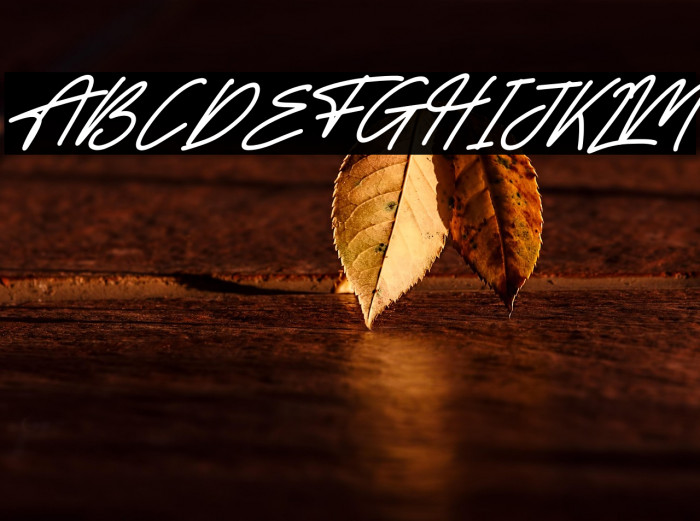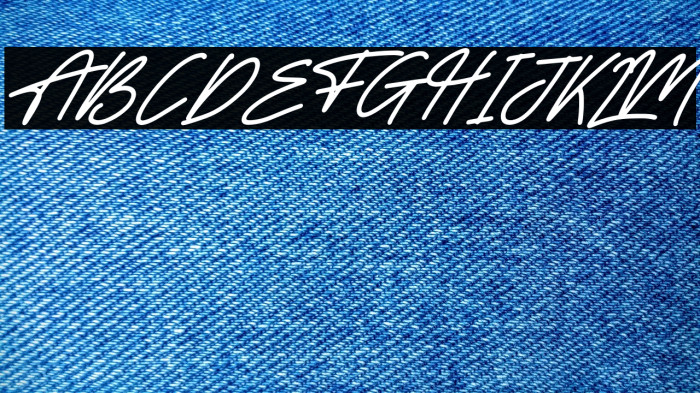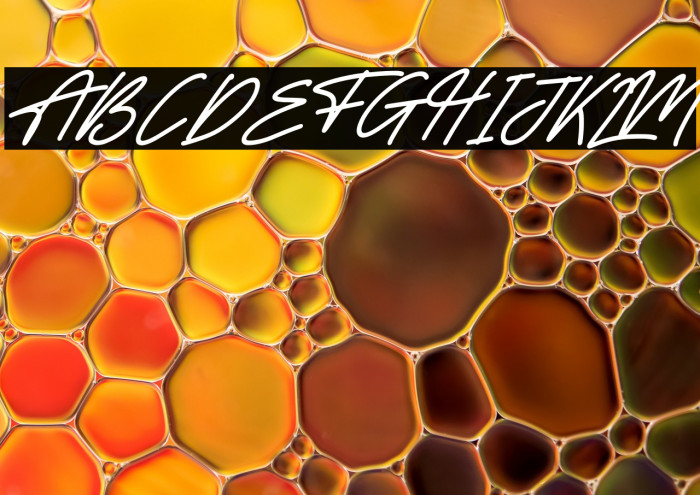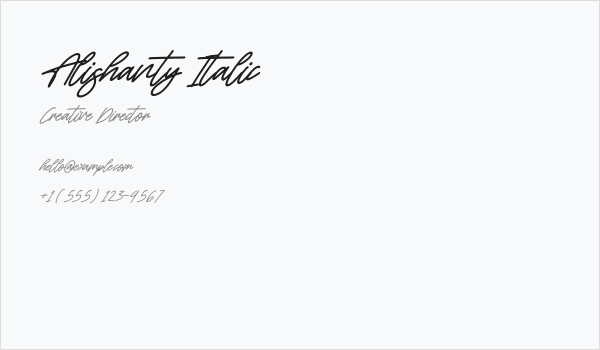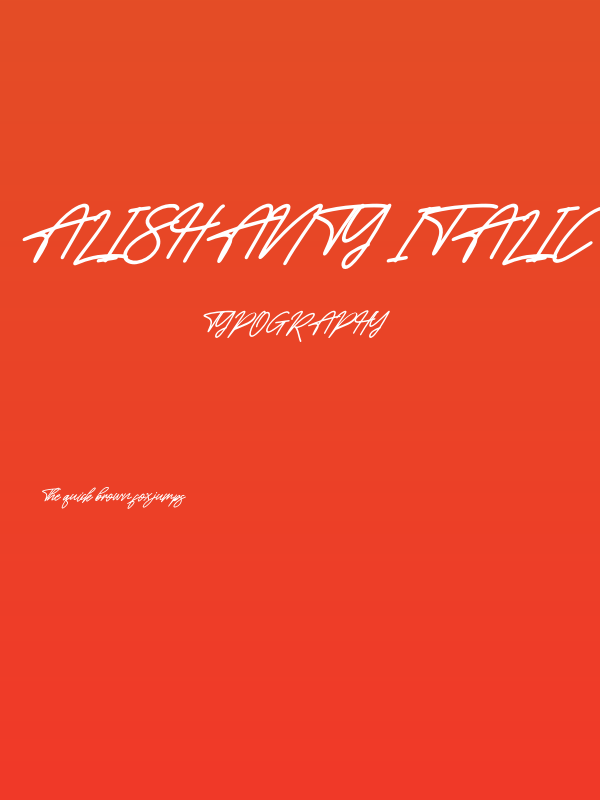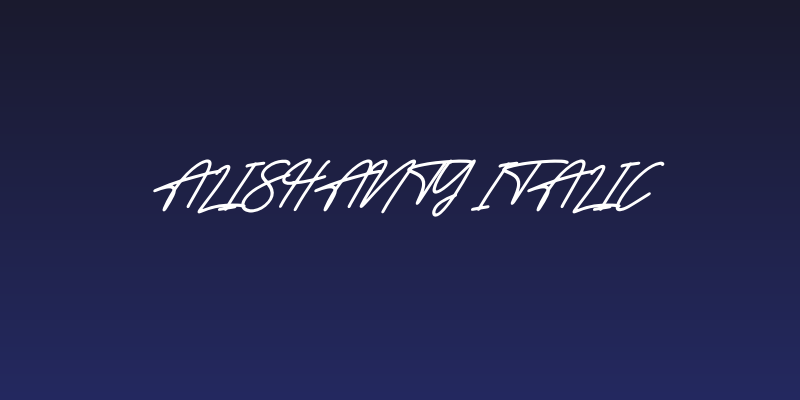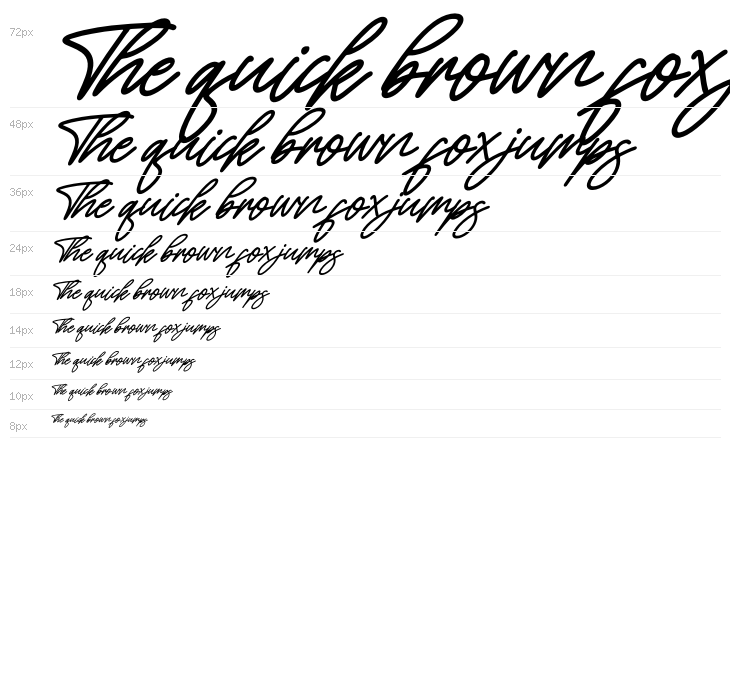
Alishanty Italic Font
Alishanty Italic Description
This font exudes a dynamic and fluid style, characterized by its cursive, handwritten appearance. The letters are connected, creating a seamless flow that mimics natural handwriting. The strokes are smooth and consistent, with a slight slant that enhances its italic nature. The uppercase letters maintain a bold presence, while the lowercase letters are more delicate, yet still maintain a sense of cohesion. The numerals and special characters follow the same cursive style, ensuring uniformity across all characters. This font is ideal for projects that require a personal touch or an elegant, yet informal, aesthetic.
| Overall Style | Elegant, Personal |
| Proposed Projects | Ideal for wedding invitations, personal branding, greeting cards, and creative projects that require a personal touch. |